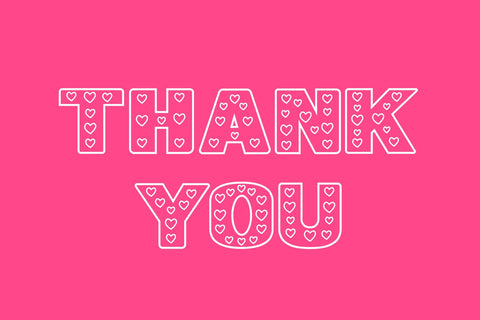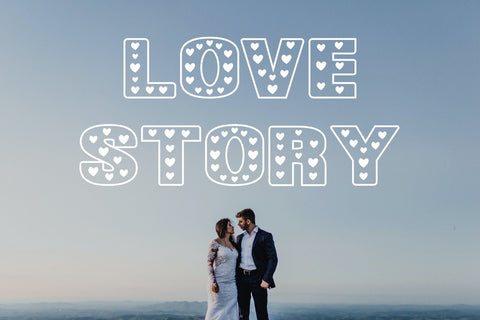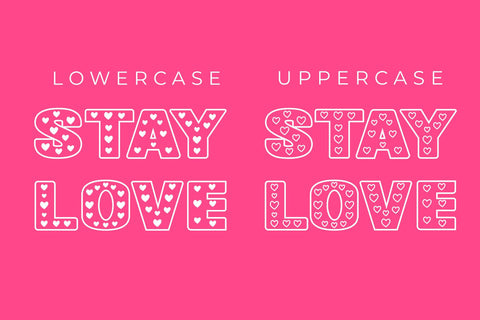
STAY LOVE
STAY LOVE is a cute and quirky decorative font with love ornaments and use it to create gorgeous wedding invitations, beautiful stationary art, eye-catching social media posts, and cute greeting cards. Add them to your designs and they become awesome designs.